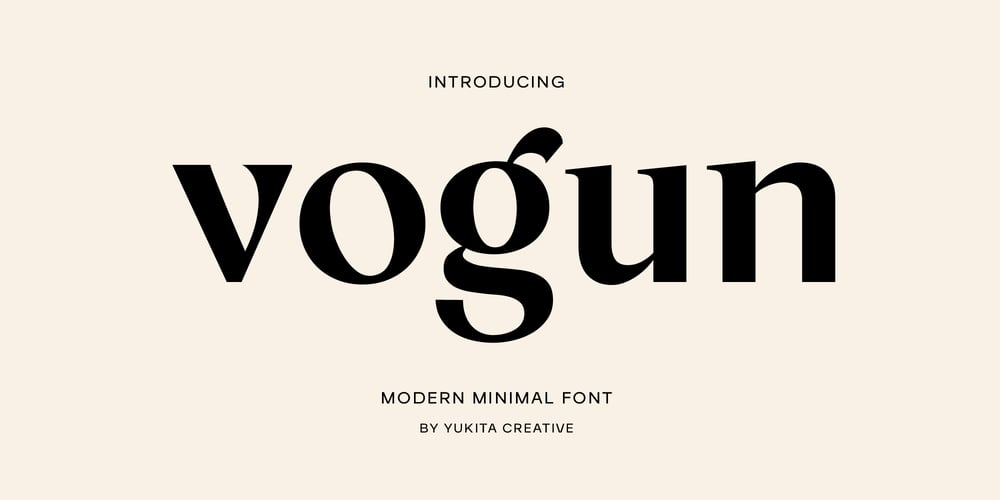
Vogun Font Family was designed by Yukita Creative and published by Yukita Creative. Vogun contains 2 styles and family package options. Vogun Minimal Modern Font is a sleek and minimalistic display typeface crafted for modern aesthetics. With its clean lines and balanced proportions, Vogun is perfect for bold, eye-catching designs that demand simplicity and sophistication. Available in Regular and Italic styles, this versatile font is ideal for branding, headlines, posters, packaging, and contemporary projects. Vogun delivers striking simplicity with a refined look—perfect for designers who value minimalism without compromising style.